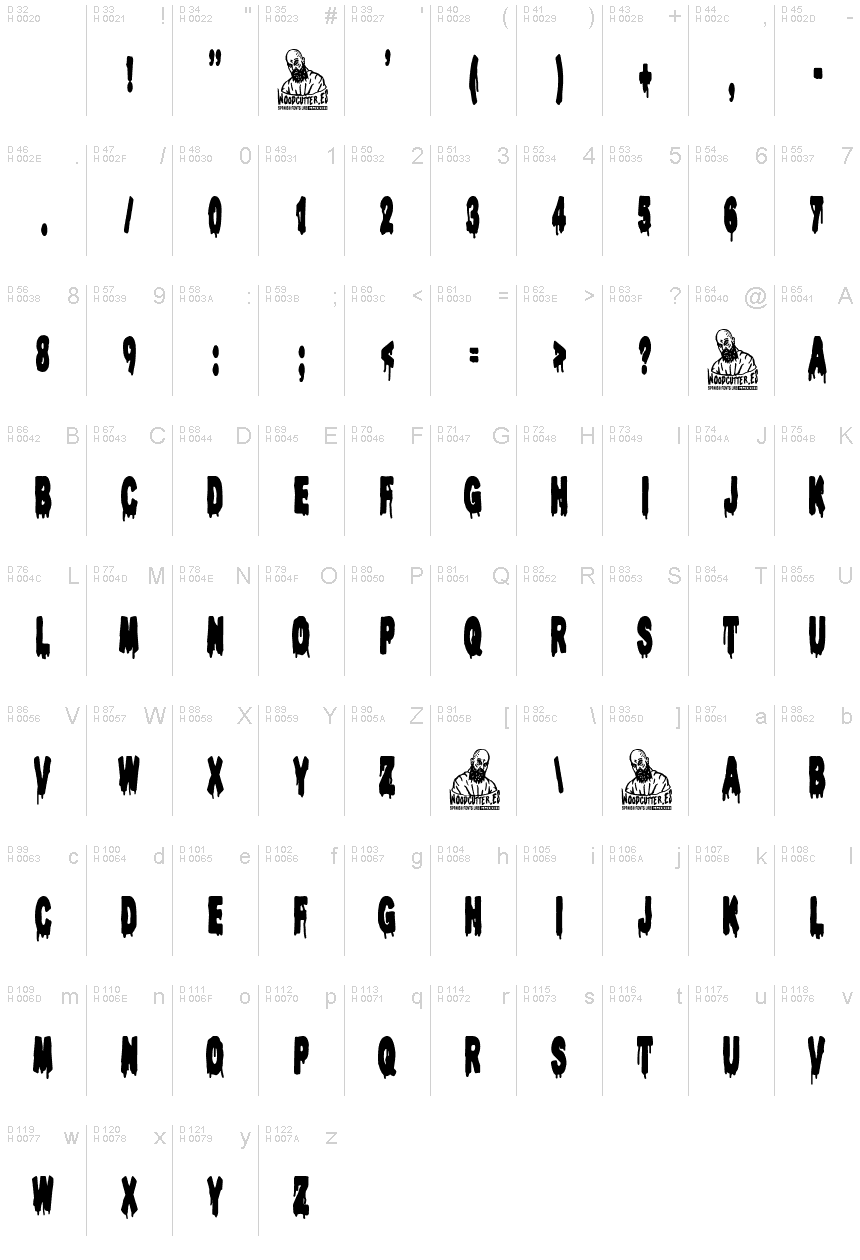
Toxic Cemetery
Toxic Cemetery, a chilling creation by Woodcutter, is a bold and extra-condensed display font that will send shivers down your spine.
With its scary and Halloween-themed style, this font is perfect for horror movie posters, haunted house flyers, and eerie party invitations. Its liquid dripping details add an extra touch of macabre to any design project.
Whether you're working on a spooky branding campaign or creating bone-chilling social media graphics, Toxic Cemetery will give your designs an unforgettable frightful flair.